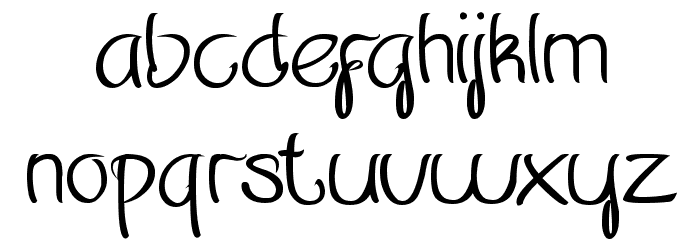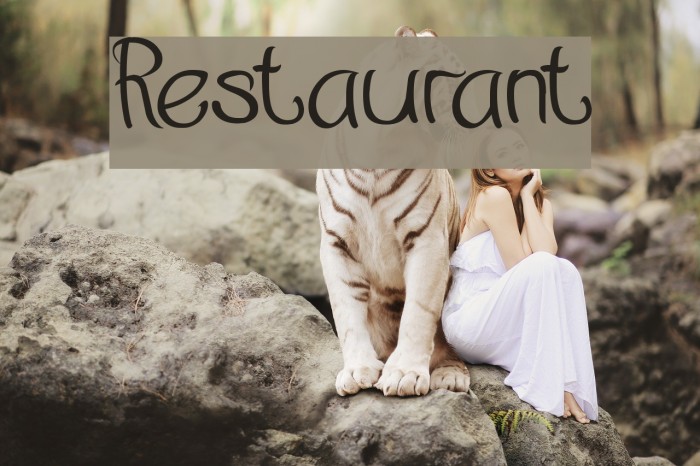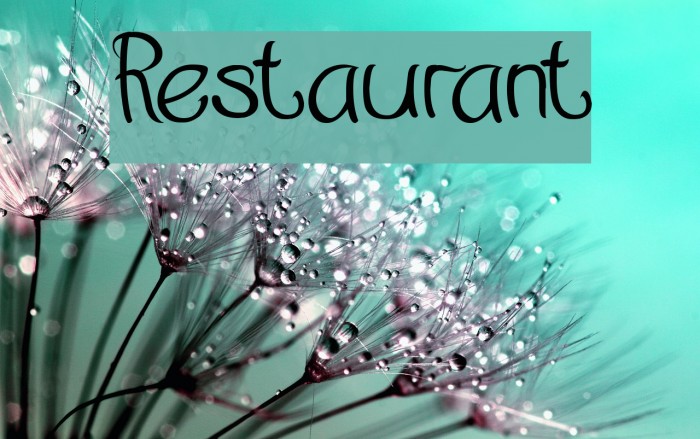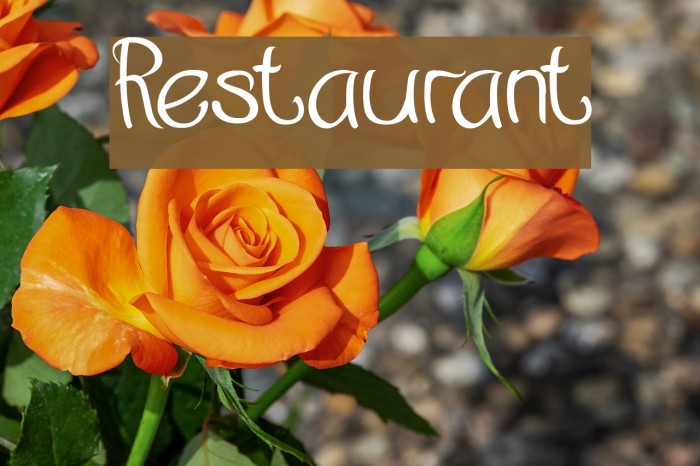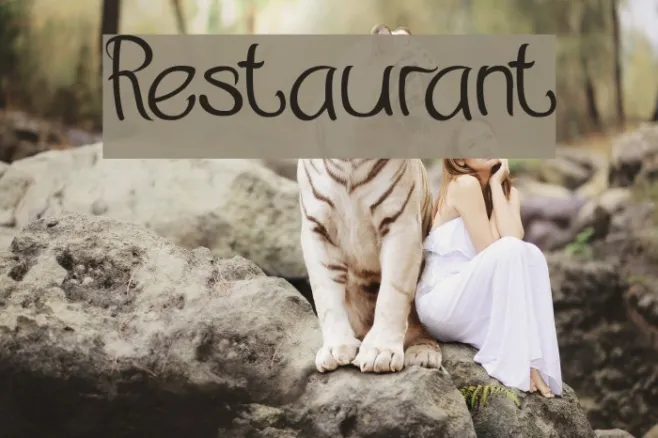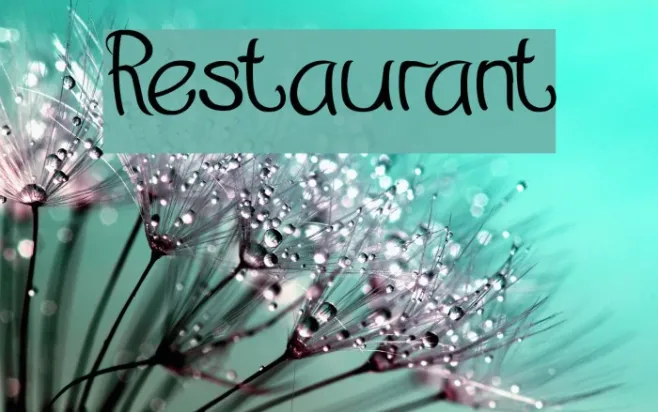
Restaurant Font
This font features a playful and whimsical design, characterized by its curly and flowing letterforms. The uppercase letters exhibit a consistent height with a slight slant, giving them a dynamic and lively appearance. The lowercase letters maintain the same playful style, with loops and curves that add to the font's charm. The strokes are moderately thick, providing a medium contrast that enhances readability while maintaining the decorative nature of the font. The overall design is reminiscent of handwriting, making it suitable for projects that require a personal touch.
A playful, curly font with a whimsical, handwritten style.
- Proposed Projects: Ideal for greeting cards, children's books, playful branding, and invitations.
- Use Case: Logos, Headlines, Invitations